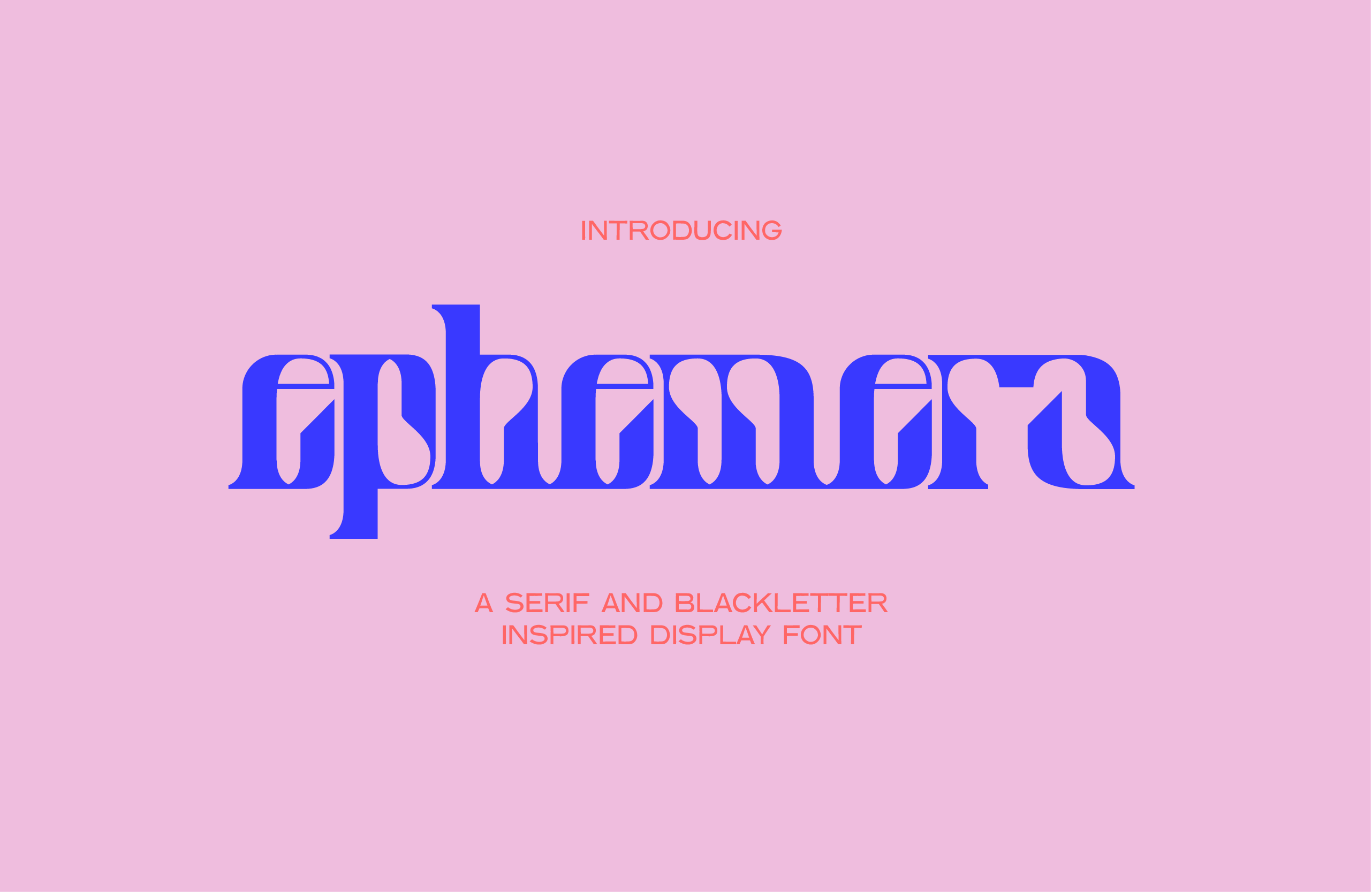
Ephemera - Display Font
Inspired by blackletter and serif letterforms, this bold display typeface evokes centuries of typographic tradition. With each letter carefully designed to flow organically to the next, advanced ligatures, and beautiful optical kerning, Ephemera is perfect for branding, large titles, and other display purposes.